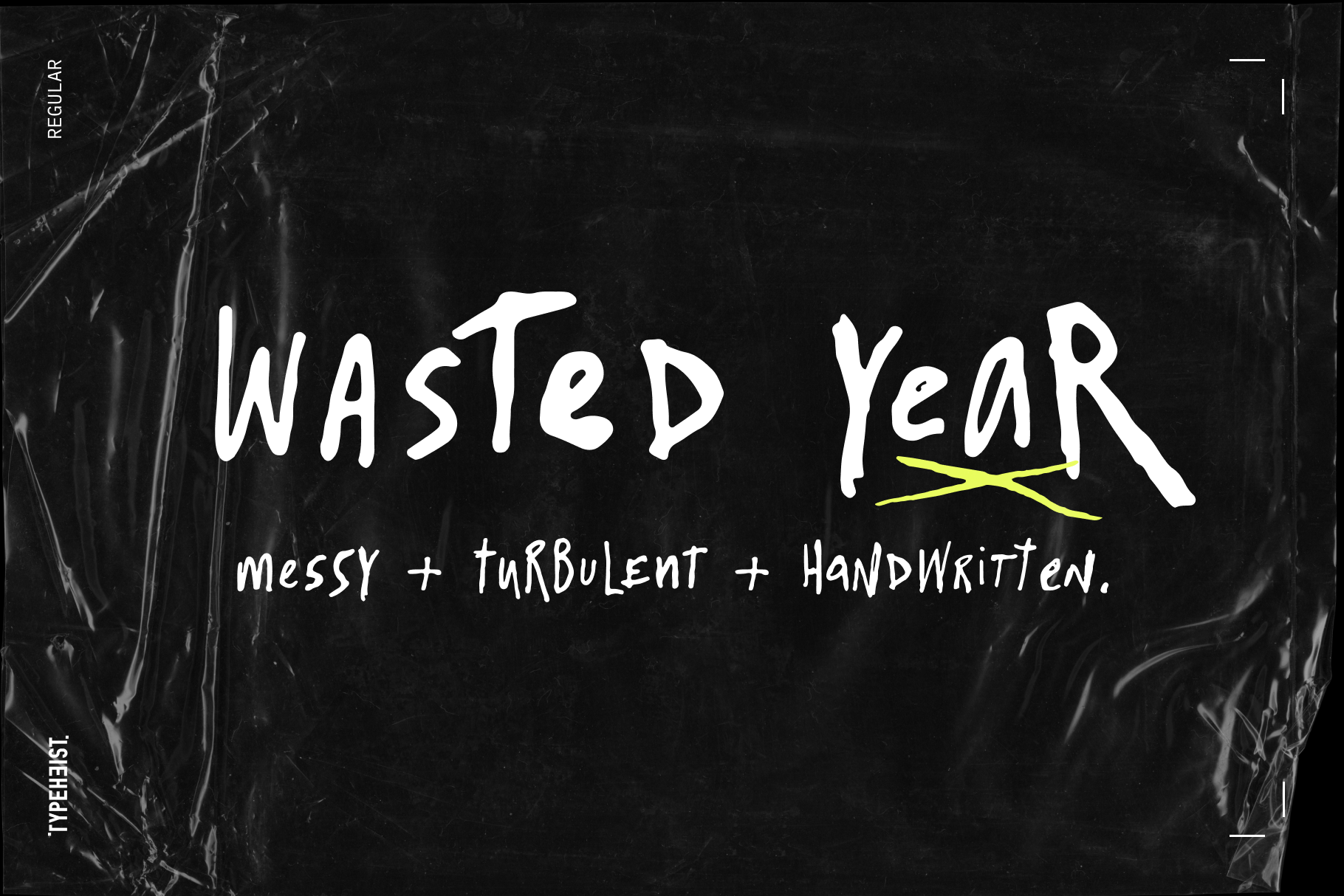
It’s messy, turbulent, handwritten. With over 350 glyphs.
Why does it look so realistic?
Hundreds of handwritten custom letter combinations make this font look like it was scrawled with a pen, not typed with a computer. These characters belong next to each other... that’s how the natural flow and messy style is achieved. You won't see many duplicate letter styles here.
- Wasted Year Regular
- 350+ glyphs and over 200+ custom ligatures
- Standard english characters
- Accented characters (Latin-1)